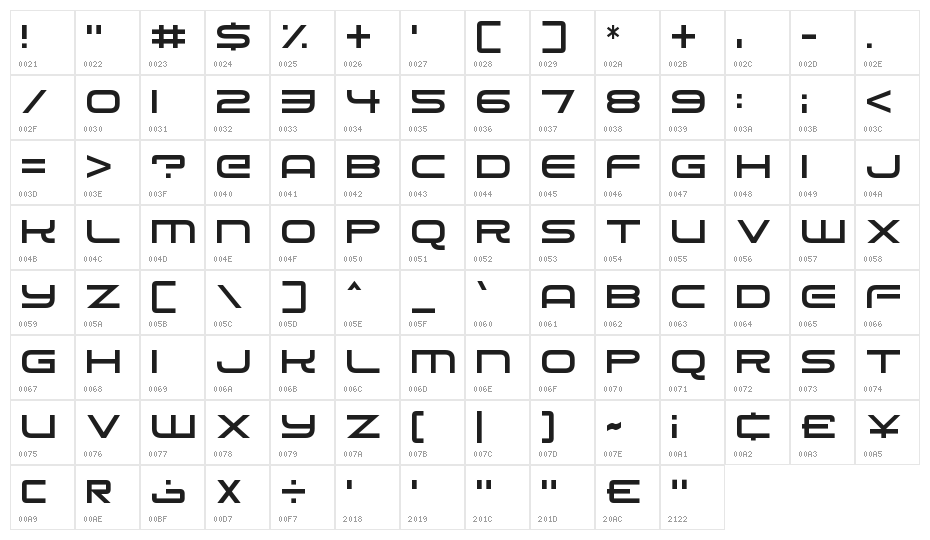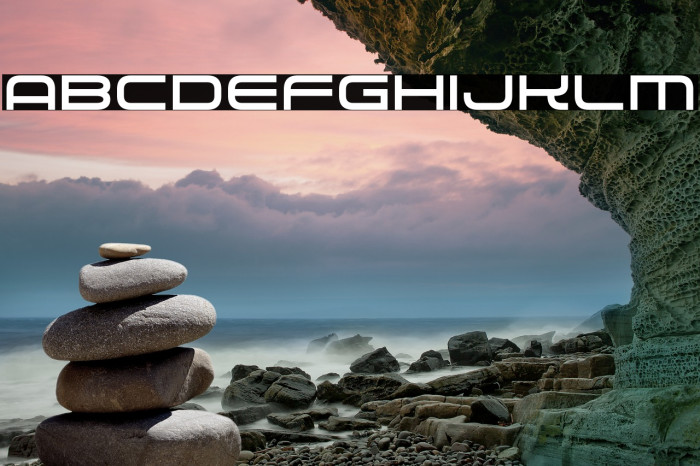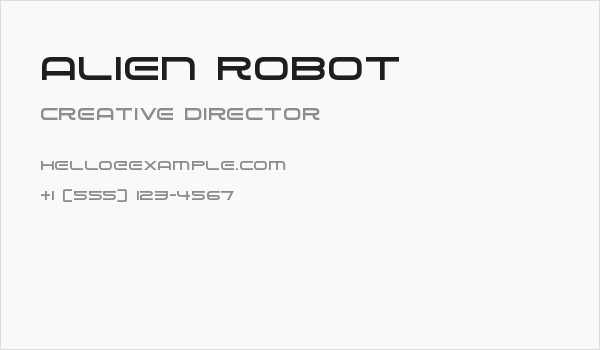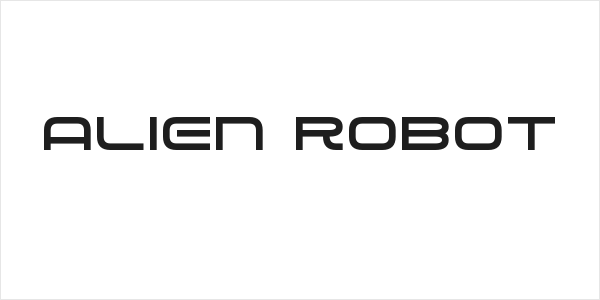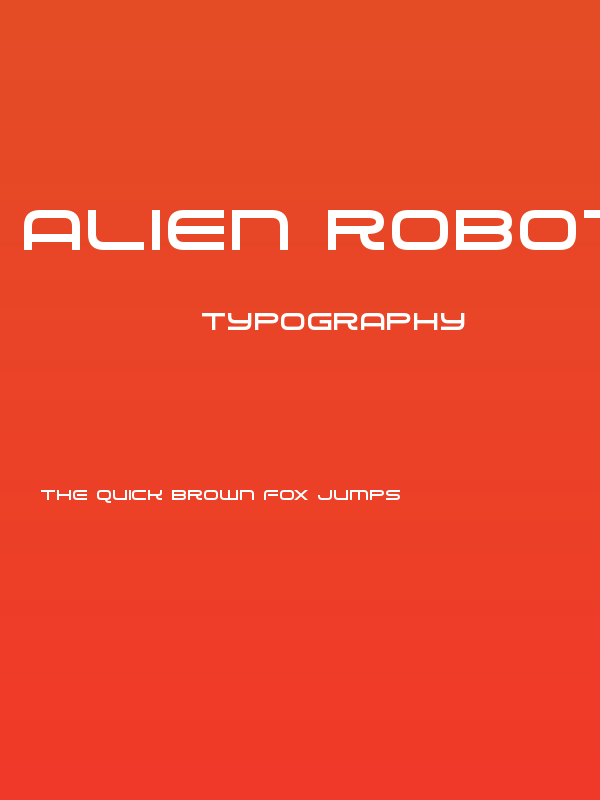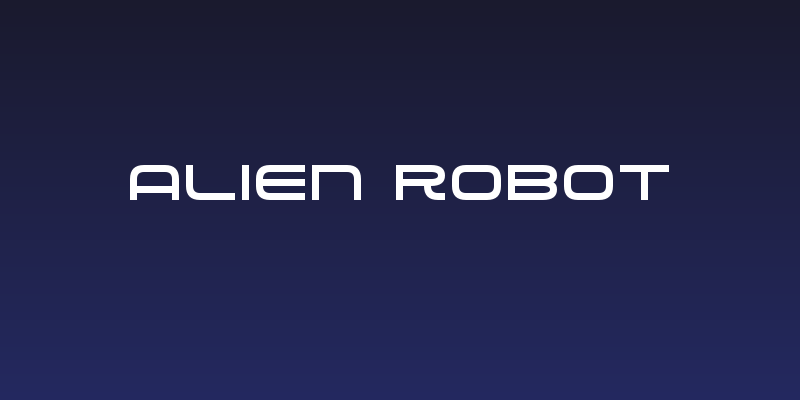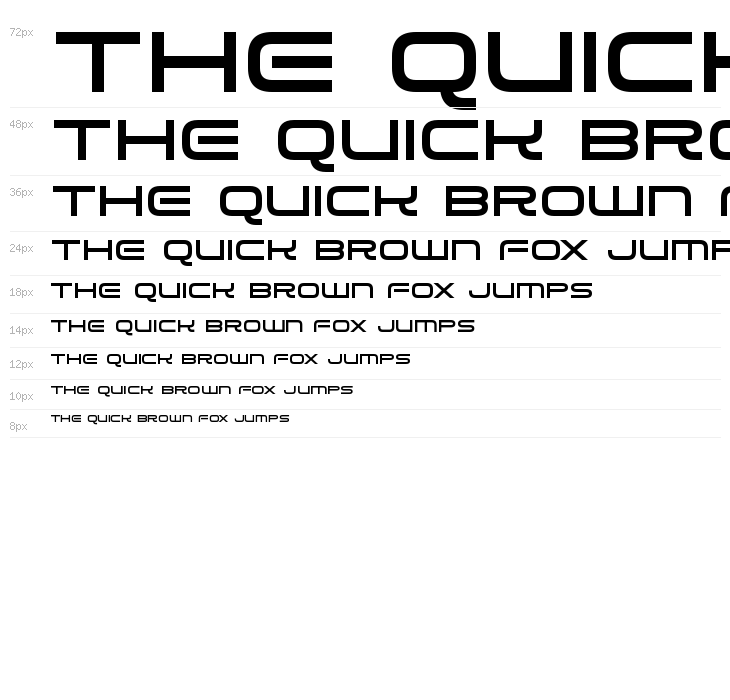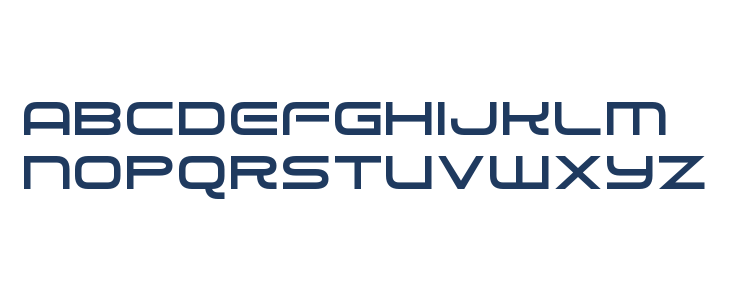
Alien Robot Font
Alien Robot Description
This font features a futuristic and geometric design, characterized by its clean lines and angular shapes. The uppercase and lowercase letters maintain a consistent height, contributing to a uniform appearance. The numerals and special characters align seamlessly with the overall style, enhancing its modern aesthetic. The font's structure is both bold and sleek, making it suitable for digital and print media. Its unique design elements, such as the cutouts and sharp edges, give it a distinct robotic feel, ideal for projects that require a tech-savvy or sci-fi theme.